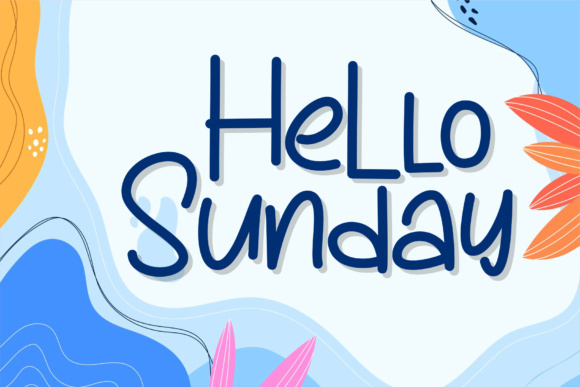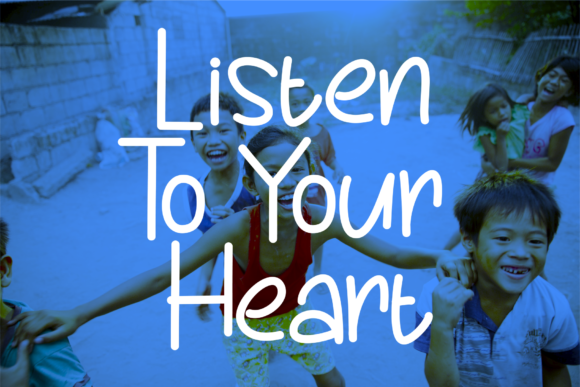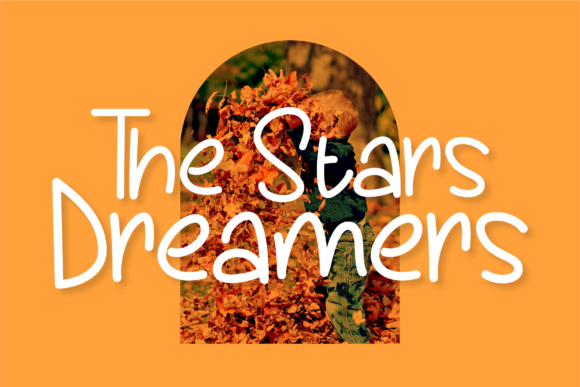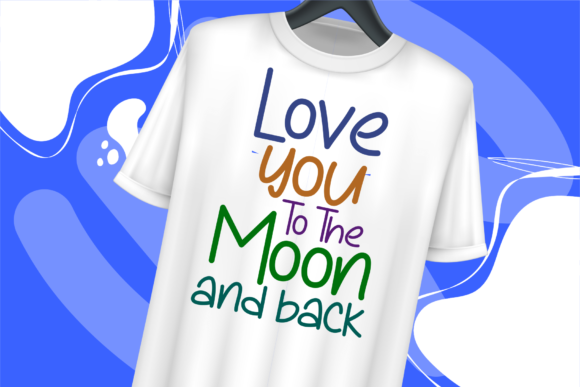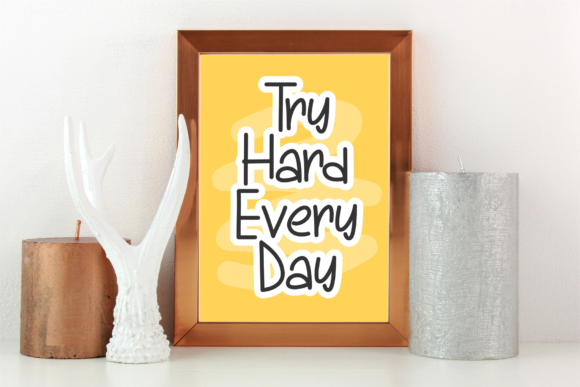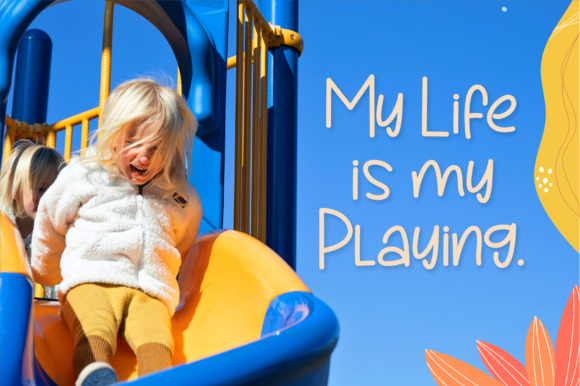
Introducing Heaven Dream Font: Elevate Your Designs with a Touch of Elegance
Are you on the hunt for a font that embodies simplicity, elegance, and versatility? Look no further than the Heaven Dream Font, a beautiful, minimalist, and neat handwritten font designed to make your creative projects stand out. In this article, we’ll dive into the world of Heaven Dream Font, exploring its features, benefits, and uses, as well as provide valuable insights for designers and crafters looking to elevate their designs.
The Essence of Heaven Dream Font
Heaven Dream Font is a carefully crafted, handwritten typeface that exudes a sense of calmness and serenity. Its minimalist and neat design makes it an excellent choice for a wide range of projects, from digital and print materials to branding and packaging. The font’s clean lines, subtle curves, and balanced proportions create a visually appealing aesthetic that is both modern and timeless.
Key Features of Heaven Dream Font
- Minimalist design: Heaven Dream Font boasts a simple, uncluttered design that ensures clarity and legibility.
- Neat handwritten style: The font’s handwritten style adds a touch of warmth and personality to your designs.
- Versatility: Heaven Dream Font can be used in a variety of projects, including logos, headings, body text, and more.
- Ease of use: The font is easy to read and works well in both digital and print formats.
Benefits of Using Heaven Dream Font
So, why choose Heaven Dream Font for your next project? Here are just a few benefits of using this exceptional font:
- Enhance your brand’s visual identity: Heaven Dream Font can help you create a consistent and professional visual brand that resonates with your audience.
- Stand out from the crowd: The font’s unique, handwritten style ensures that your designs will stand out in a crowded market.
- Boost creativity: Heaven Dream Font’s versatility and elegance can inspire your creativity and help you explore new design possibilities.
- Save time: With Heaven Dream Font, you can quickly and easily create stunning designs without spending hours searching for the perfect font.
Heaven Dream Font is an excellent choice for designers and crafters looking to add a touch of elegance and sophistication to their work. Whether you’re creating:
- Logos and branding materials: Heaven Dream Font is perfect for creating professional, high-end logos and branding materials.
- Digital and print materials: The font works beautifully in both digital and print formats, making it ideal for brochures, flyers, posters, and more.
- Web and mobile designs: Heaven Dream Font is optimized for web and mobile use, ensuring that your designs look great on any device.
- Crafting and DIY projects: The font’s handmade style makes it a great choice for crafting and DIY projects, such as handmade cards, invitations, and scrapbooking.
Tips for Using Heaven Dream Font
To get the most out of Heaven Dream Font, here are a few tips to keep in mind:
- Experiment with font sizes and colors: Heaven Dream Font looks great in a variety of sizes and colors, so don’t be afraid to experiment and find the perfect combination for your design.
- Pair with other fonts: The font pairs well with other sans-serif and serif fonts, making it easy to create visually appealing font combinations.
- Use it consistently: To create a cohesive visual brand, use Heaven Dream Font consistently across all your designs and marketing materials.
| Font Name | Heaven Dream Font |
In conclusion, Heaven Dream Font is a stunning, minimalist, and neat handwritten font that can elevate your designs and help you stand out in a crowded market. With its versatility, elegance, and ease of use, it’s an excellent choice for designers and crafters looking to add a touch of sophistication to their work. So why wait? Download Heaven Dream Font today and discover the perfect font for your next creative project!